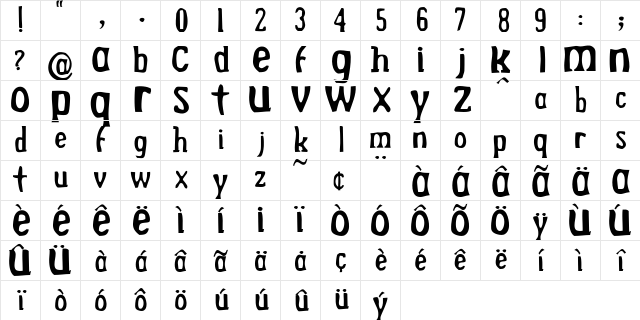
Drek Regular Free Font
Drek Regular
Drek Family
Drek Regular
Design Context for Drek
Drek is a composed and adaptable typeface that performs quietly and consistently across a wide range of design contexts.